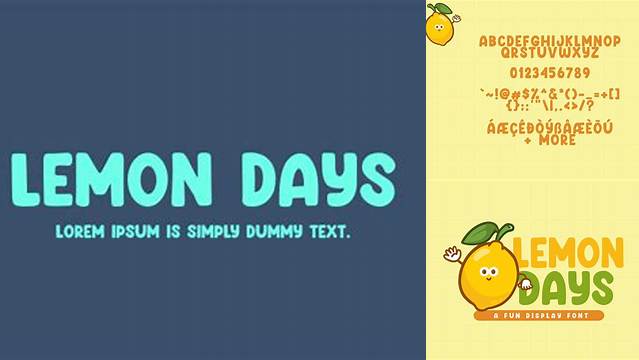
Lemon Days Font: Free Download & Creative Uses
Hey guys! Are you on the hunt for a font that screams fresh, fun, and maybe even a little bit retro? Then you've probably heard whispers about the Lemon Days font. This font has been making waves in the design world, and for good reason. It's got that perfect blend of vintage charm and modern readability, making it ideal for a whole range of projects. But where do you find this gem, and how can you use it to its full potential? Well, you've come to the right place! This article is your ultimate guide to Lemon Days font free download, exploring its characteristics, licensing, creative applications, and even some fantastic alternatives. So, buckle up, fellow font enthusiasts, and let's dive into the juicy world of Lemon Days!
What Makes Lemon Days Font So Special?
Let's get down to the nitty-gritty of what makes Lemon Days font such a popular choice. This isn't just another typeface; it's a design statement. Its unique character stems from its blend of retro aesthetics and modern usability. The font often features rounded terminals, a slightly condensed structure, and a friendly, approachable vibe. Think vintage signage meets contemporary design β that's Lemon Days in a nutshell. The overall impression is one of warmth and playfulness, which is why it's so well-suited for projects that aim to evoke a sense of nostalgia or fun. Imagine using it for a lemonade stand poster (pun intended!), a retro-themed party invitation, or even a branding project for a quirky, independent business. The versatility of Lemon Days font lies in its ability to be both eye-catching and legible, making it a powerful tool in any designer's arsenal. Whether you're working on a digital project, print materials, or even a logo, Lemon Days can add a touch of personality and style that sets your work apart. Itβs this unique combination of vintage charm and modern practicality that makes Lemon Days a favorite among designers and creatives alike. The slightly condensed structure allows it to fit well in tight spaces, while the rounded terminals give it a soft and welcoming feel. It's the kind of font that makes you want to smile, and that's a pretty powerful thing in the world of design. Plus, its distinctive look ensures that your projects will stand out from the crowd, adding a unique touch that's both stylish and memorable. In essence, Lemon Days font is more than just a typeface; it's a design asset that can elevate your work and help you connect with your audience on a deeper level. So, if you're looking for a font that's both versatile and visually appealing, Lemon Days might just be the perfect choice for you.
Creative Ways to Use Lemon Days Font
Alright, now for the fun part! Let's brainstorm some awesome ways you can put the Lemon Days font to work. As we've discussed, its retro-modern vibe makes it incredibly versatile. Think about projects where you want to evoke a sense of nostalgia, playfulness, or even a touch of whimsy. One fantastic application is in branding. Lemon Days font can be perfect for businesses that want to project a friendly and approachable image, such as cafes, bakeries, or handmade goods shops. Its unique character helps it stand out from the crowd, making it a memorable choice for logos, website headers, and marketing materials. Imagine a logo for a vintage-inspired ice cream parlor or a website banner for a quirky online store β Lemon Days could be the perfect fit! Another area where this font shines is in invitations and event materials. Whether you're planning a retro-themed party, a summer barbecue, or a casual wedding, Lemon Days can add a touch of personality and style. Think about using it for save-the-dates, invitations, menus, and even signage. Its readability ensures that your message gets across clearly, while its unique aesthetic adds a touch of visual flair. And let's not forget about social media graphics! In today's digital world, standing out on social media is crucial, and Lemon Days font can help you do just that. Use it in your Instagram posts, Facebook ads, and other online content to create eye-catching visuals that grab attention. Its retro-modern vibe is perfect for brands that want to connect with their audience on a personal level. Beyond these specific applications, Lemon Days is also a great choice for a wide range of other projects, including posters, book covers, packaging design, and even editorial layouts. Its versatility makes it a valuable asset in any designer's toolkit. The key is to experiment and see how it works with different styles and contexts. Try pairing it with contrasting fonts for a dynamic look, or use it in a limited color palette to create a cohesive and stylish design. The possibilities are endless! So, get creative, have fun, and let your imagination run wild with Lemon Days font.
Lemon Days Font Alternatives: Exploring Your Options
Okay, so maybe you're not completely sold on Lemon Days font, or perhaps you're just looking for some complementary typefaces to round out your design arsenal. No problem! The world of fonts is vast and exciting, and there are plenty of alternatives that offer similar vibes or can be paired beautifully with Lemon Days. Let's explore some of your options. If you're drawn to the retro feel of Lemon Days, fonts like Bebas Neue, Montserrat, and Raleway can be excellent choices. Bebas Neue is a classic sans-serif that's known for its clean lines and tall, narrow letterforms, making it a great option for headlines and display text. Montserrat is another popular sans-serif that offers a more geometric and modern feel, while still retaining a touch of retro charm. And Raleway is a versatile font that works well in both headlines and body text, making it a solid all-around choice. Another approach is to look for fonts that share Lemon Days' rounded terminals and friendly character. Typefaces like Nunito, Cabin, and Open Sans can provide a similar warmth and approachability. Nunito is a particularly good choice if you're looking for a font with a slightly softer feel, while Cabin offers a more geometric and structured look. Open Sans is a highly readable font that works well in a variety of contexts, making it a safe and reliable option. Of course, the best way to find the perfect font for your project is to experiment and see what works best. Try pairing different fonts together to create unique and interesting combinations. For example, you could use Lemon Days font for headlines and a more neutral sans-serif like Open Sans for body text. Or, you could combine Lemon Days with a script font for a more elegant and playful look. The key is to have fun and explore the possibilities. Remember, the goal is to find a font (or fonts) that not only looks great but also conveys the right message and tone for your project. So, don't be afraid to step outside your comfort zone and try something new. With a little bit of experimentation, you're sure to find the perfect font (or fonts) to bring your creative vision to life. And who knows, you might even discover your new favorite typeface in the process!
Conclusion: Embrace the Zest of Lemon Days Font
So, there you have it, guys! Your complete guide to the Lemon Days font: where to find it, how to use it, and what alternatives to consider. This font is more than just a typeface; it's a design tool that can add a touch of personality, warmth, and retro charm to your projects. Whether you're working on branding, invitations, social media graphics, or anything in between, Lemon Days can help you stand out from the crowd and connect with your audience on a deeper level. But remember, finding a Lemon Days font free download requires caution. Always prioritize reputable sources and be mindful of licensing terms to ensure you're using the font legally and ethically. Font designers put a lot of passion and hard work into creating these typefaces, and respecting their rights is essential. And if Lemon Days isn't quite the perfect fit for your project, don't worry! There's a whole world of fonts out there waiting to be discovered. Explore alternatives, experiment with different pairings, and let your creativity guide you. Ultimately, the goal is to find a font (or fonts) that not only looks great but also conveys the right message and tone for your design. So, embrace the zest of Lemon Days font, but don't be afraid to branch out and explore other options as well. The world of typography is full of possibilities, and the more you experiment, the more you'll learn about what works best for you and your projects. So, go forth and create something amazing! And remember, the perfect font is out there waiting to be discovered. Happy designing!